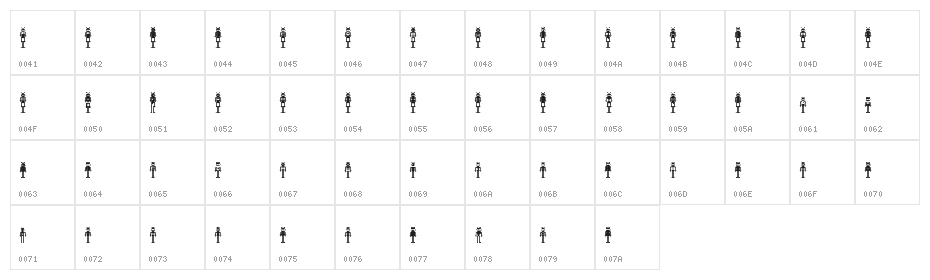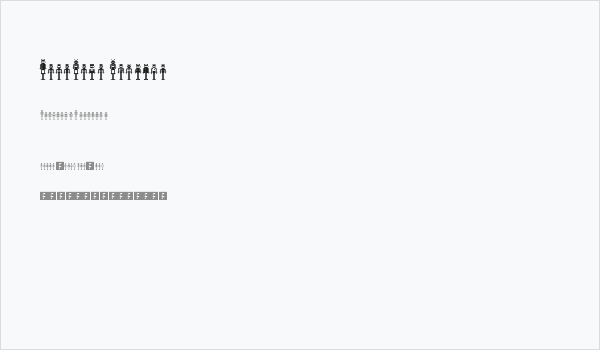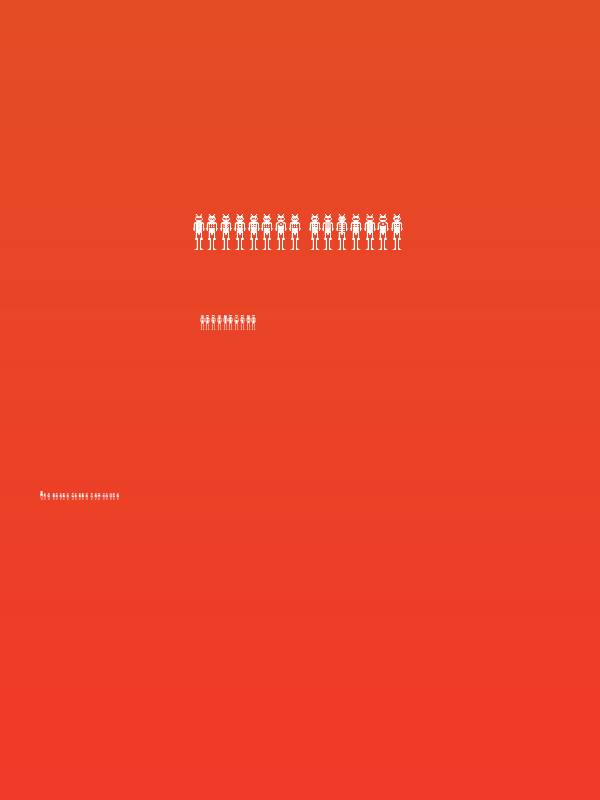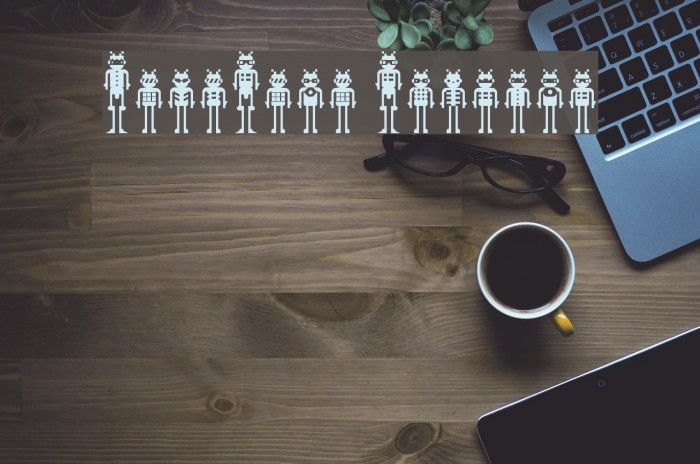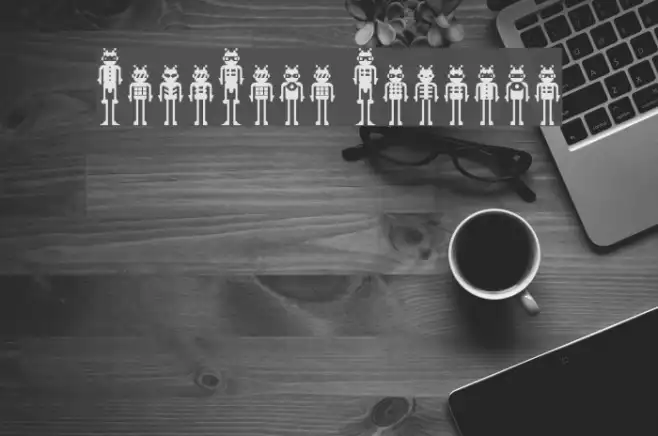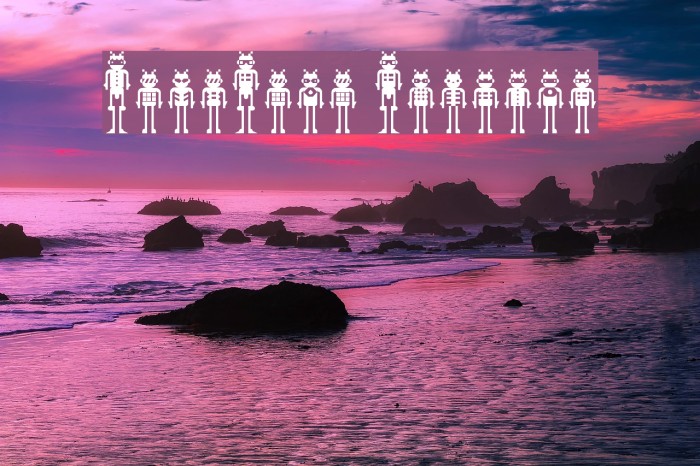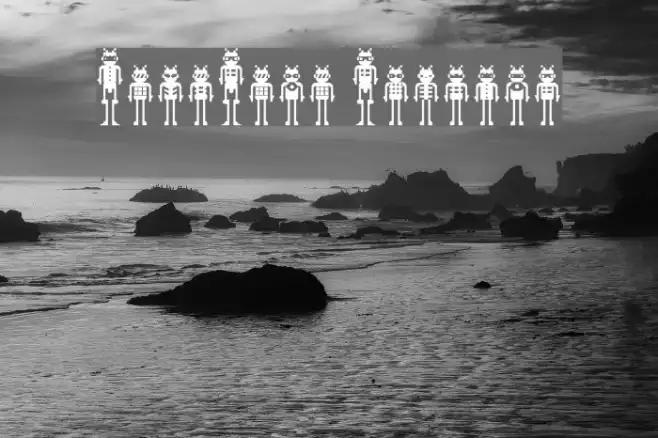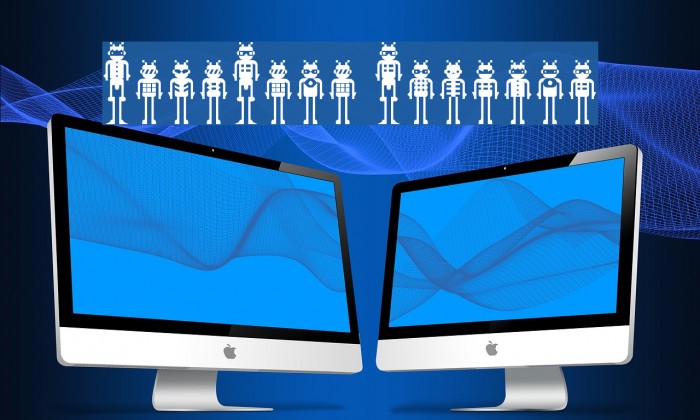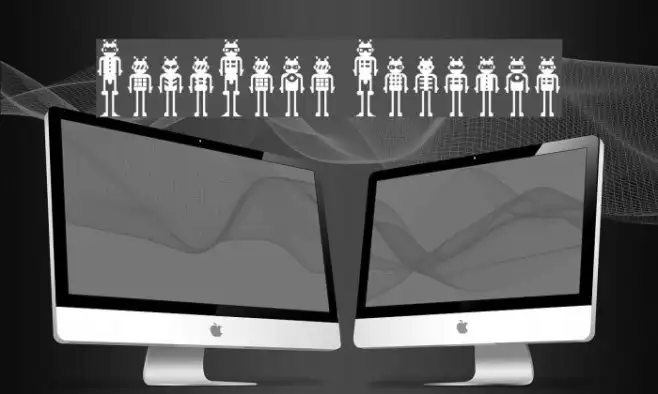
LostRobo Regular Font
LostRobo Regular Description
This font features a unique and playful design, incorporating robot-like characters that replace traditional letters and numbers. Each character is crafted to resemble a small robot, complete with distinct features such as antennae and mechanical limbs. The design is highly decorative, making it ideal for creative projects that require a futuristic or whimsical touch. The characters are evenly spaced, ensuring readability while maintaining their distinct robotic appearance. This font is perfect for projects that aim to capture attention with its unconventional and imaginative style.
| Use Case | Logos, Posters, Creative projects |
| Proposed Projects | Ideal for children's books, sci-fi themed posters, video game graphics, and creative branding projects. |